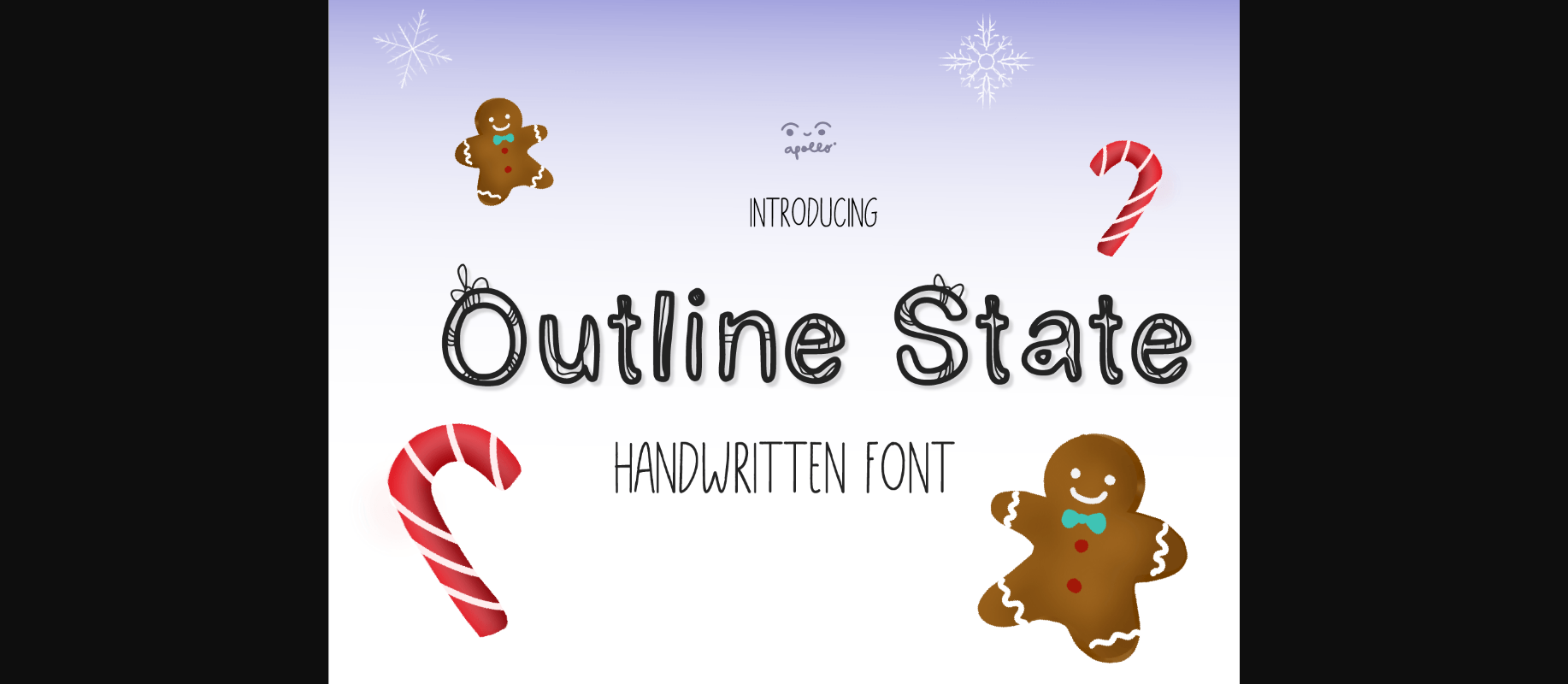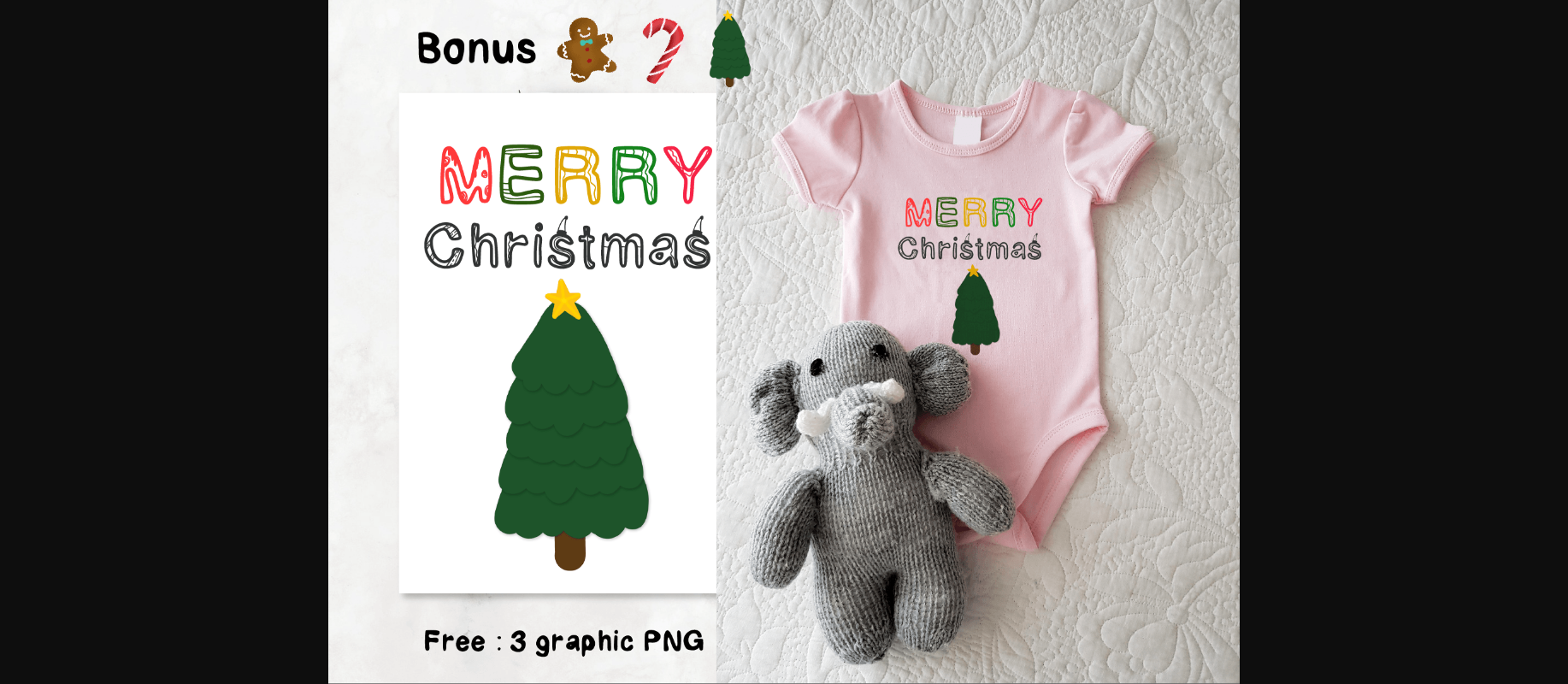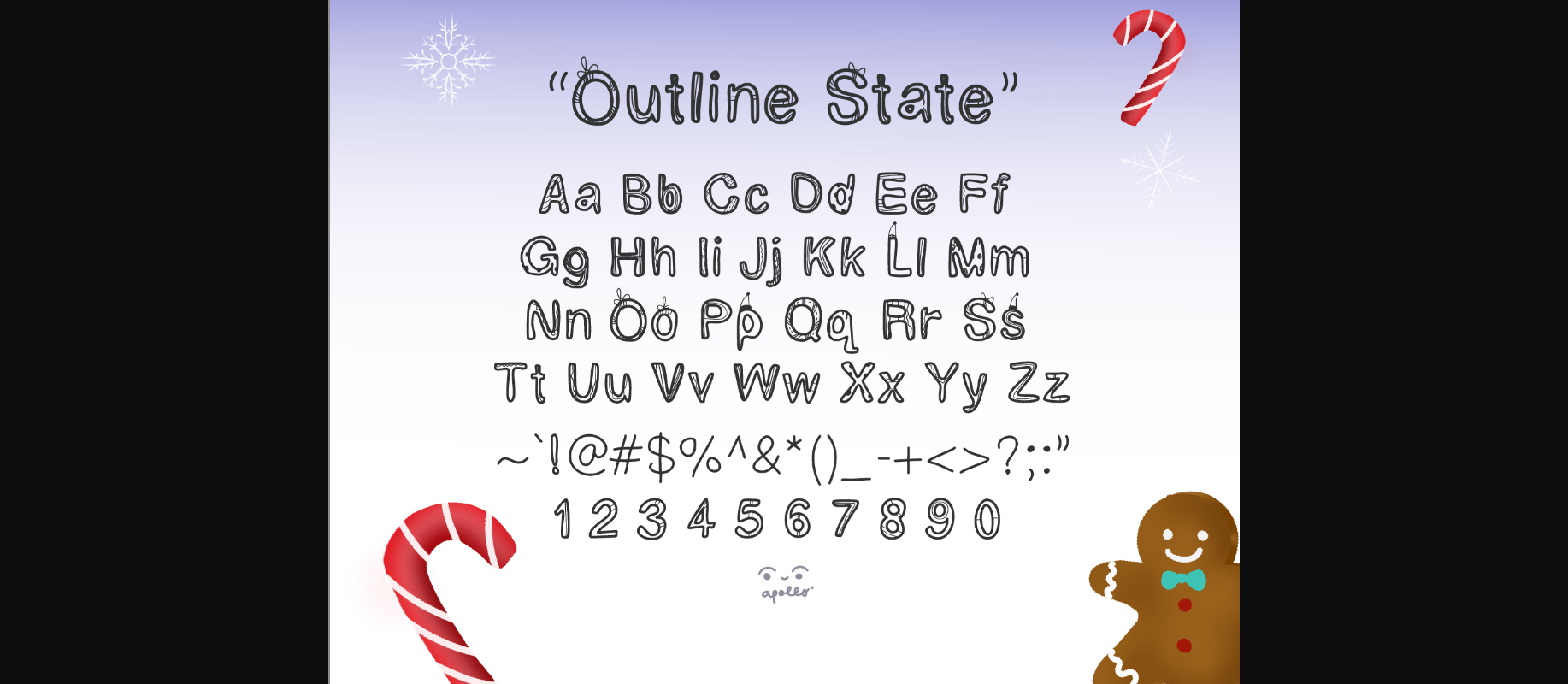
Outline State Font
About Outline State Font
Outline State is a fun project with a unique script and handwritten font. Whimsical and a bit quirky, this font is perfect for all your Funny and party-themed display projects such as blog posts, logos, branding, ads, invitations, greeting cards, planners, photo albums, decorations, and much more!